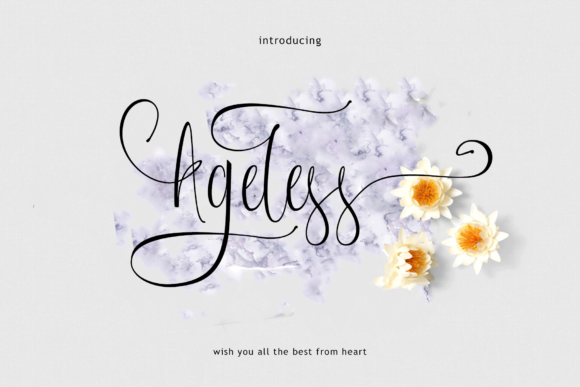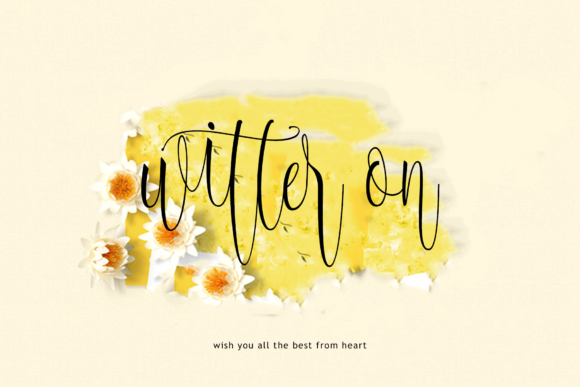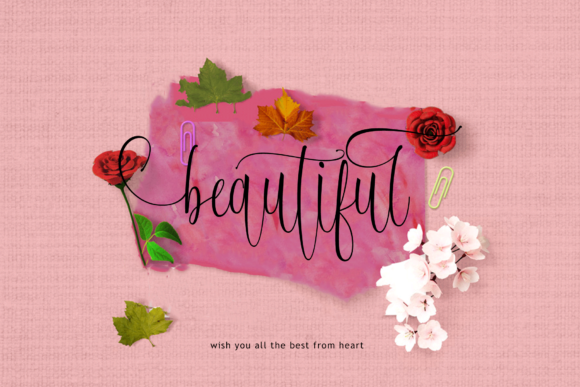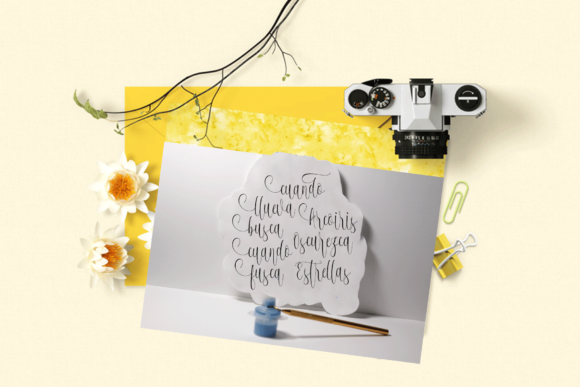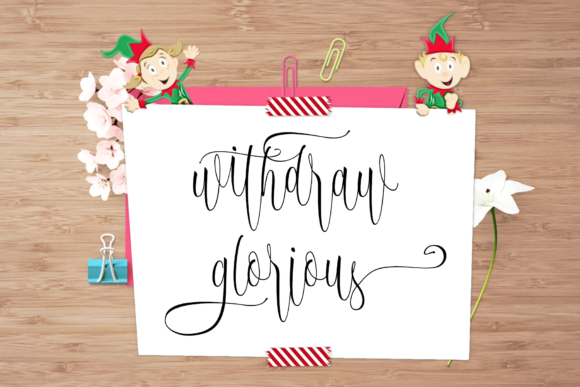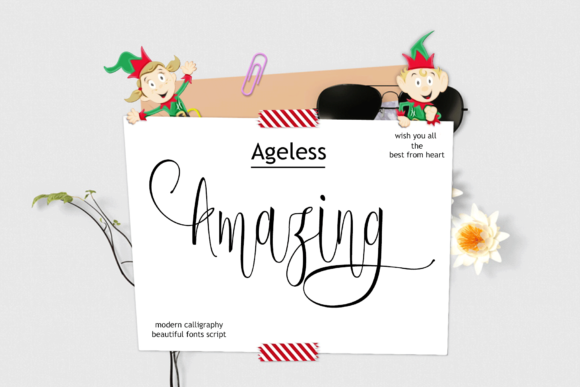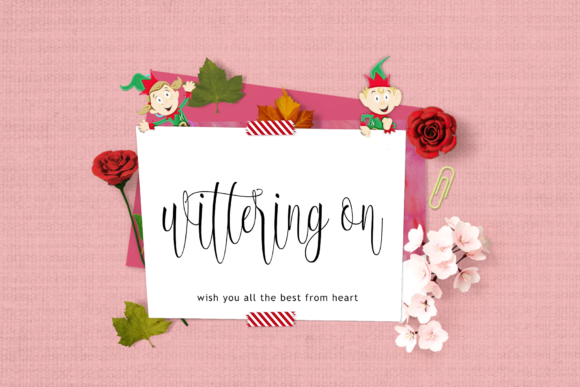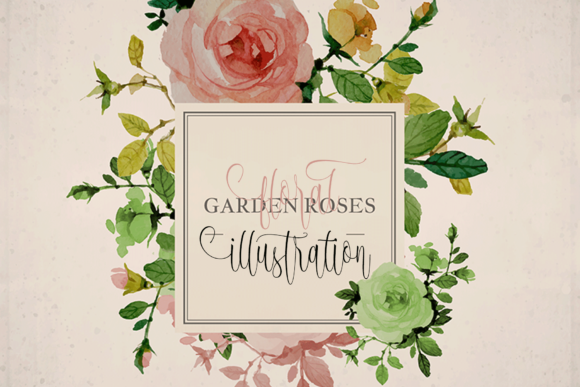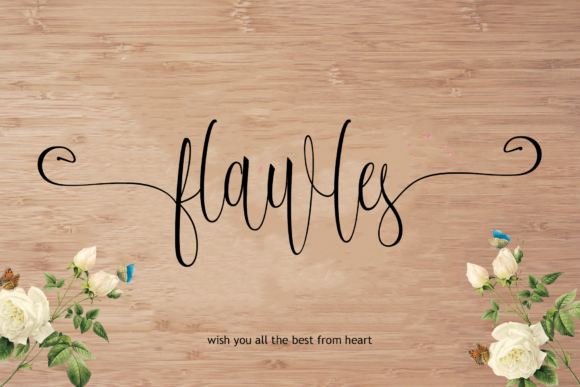
HomeScript FontsAgeless Font Script Fonts Ageless Font FacebookXPinterestWhatsApp Ageless Font Poster 2 Ageless Font Poster 3 Ageless Font Poster 4 Ageless Font Poster 5 Ageless Font Poster 6 Ageless Font Poster 7 Ageless Font Poster 8 Ageless Font Poster 9 About Ageless Font Ageless is a stunning script that will add a personal touch to your next design project! DOWNLOAD ON CREATIVE FABRICAThis font is sold and delivered by Creative Fabrica. Font Canyon may earn a commission if you buy through this link. People also explored Majestic Christmas Font Frakturata Font Sexbomb Gythar Font Structia Pumpkin Pastel Font Oxeran Ornamental Mono Font Sahitya Font 352 0 TagsAgeless Font Previous articleClarista Script FontNext articleBecreatives Font LEAVE A REPLY Cancel reply Comment: Please enter your comment! Name:* Please enter your name here Email:* You have entered an incorrect email address! Please enter your email address here Website: Save my name, email, and website in this browser for the next time I comment. Personal Use Free Fillguy Font Personal Use Free Read more about this font Just Love Personal Use Free Read more about this font Expaing Personal Use Free Read more about this font William Personal Use Free Read more about this font BLOG How to Install and Use Fonts on Windows, macOS, and Web Projects How to Install and Use Fonts on Windows, macOS, and Web Projects Fonts are a crucial part of design and branding. Whether you’re designing a... Using Fonts in Digital Marketing: Tips to Strengthen Your Brand Identity Best Fonts for T-Shirt Design – Top 2025 Picks The 10 Best Handwriting Fonts to Add Personality to Your Designs